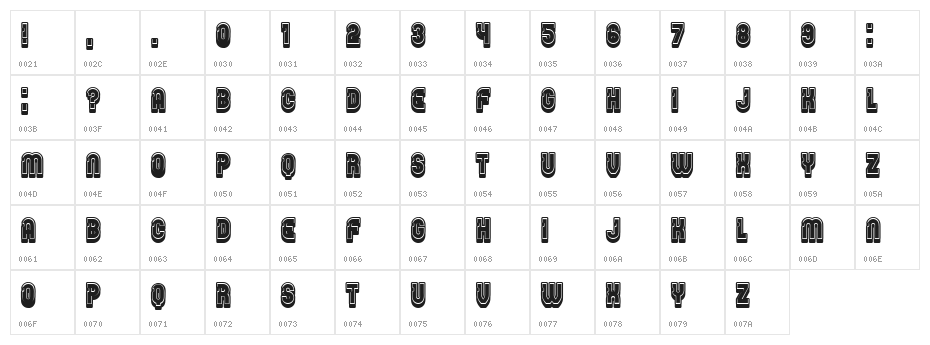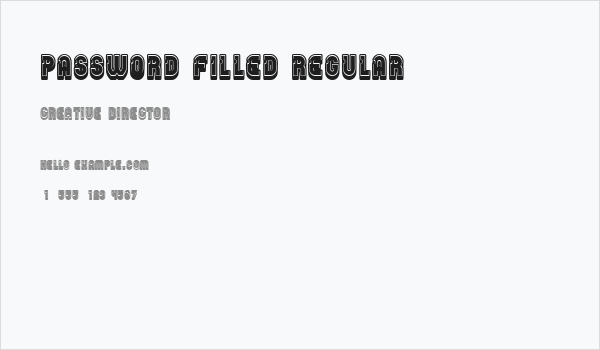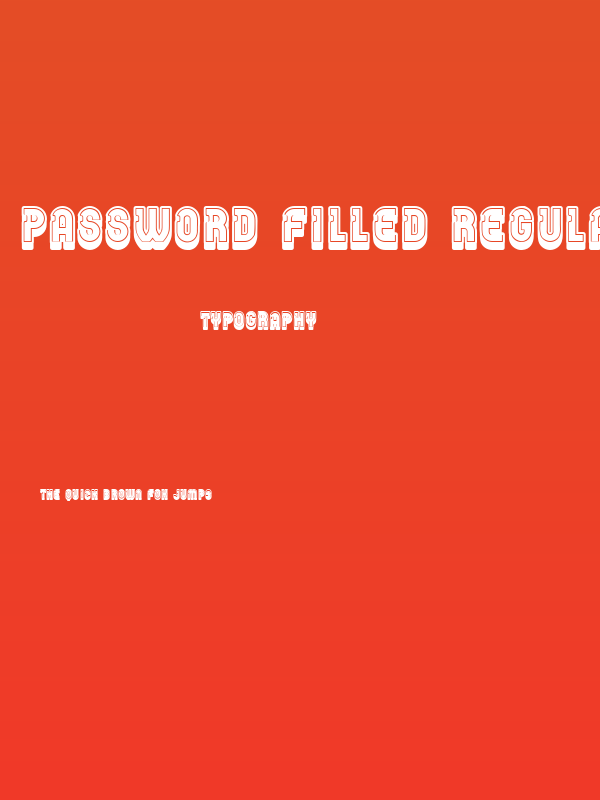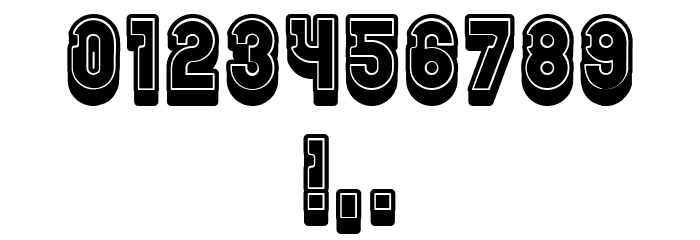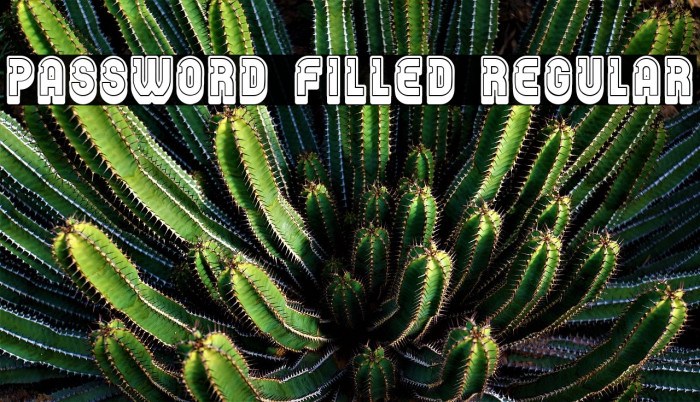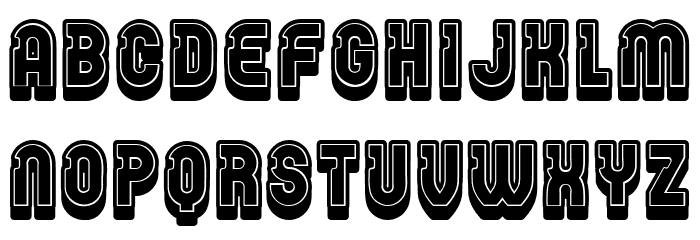
Password Filled Regular Font
Password Filled Regular Description
This font features a bold, decorative style with a strong, three-dimensional appearance. The characters are outlined with a thick black border, creating a striking contrast against the inner white space. The uppercase letters have a blocky, geometric form, while the lowercase letters maintain a consistent style. The numbers and special characters are designed to match the boldness and structure of the alphabetic characters. This font is highly legible and makes a strong visual impact, making it suitable for attention-grabbing designs.